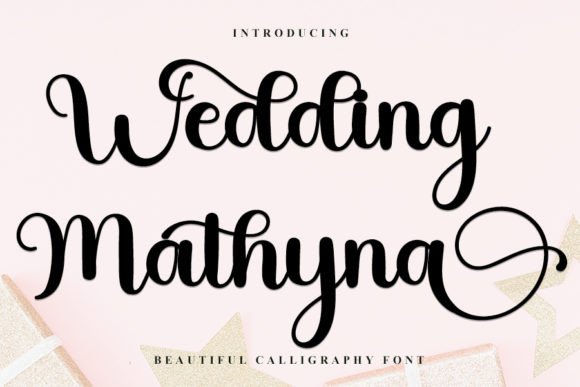
Introducing Wedding Mathyna, the most enchanting and sophisticated script font that will transform your creative endeavors into masterpieces. This exquisitely handcrafted typeface exudes elegance and grace, making it the perfect choice for those seeking to make a lasting impression.
With its beautifully flowing lines and delicate curves, Wedding Mathyna captures the essence of timeless romance and sophistication. Each letter dances across the page with a captivating rhythm, evoking a sense of joy and celebration. Whether you're crafting heartfelt invitations for your special day, designing captivating branding for your business, or creating social media posts that radiate charm, Wedding Mathyna is the perfect font to add a touch of magic to your creations.
As a PUA-encoded font, Wedding Mathyna grants you access to a world of typographic treasures. Effortlessly incorporate stunning glyphs and ligatures into your designs, unlocking endless possibilities for customization and creativity. Each intricate detail has been meticulously crafted to elevate your projects to new heights of visual allure.
Step into the realm of elegance with Wedding Mathyna. Let its graceful strokes guide your imagination and create designs that captivate and inspire. From the moment you begin typing, you'll feel the magic of this font as it transforms your words into works of art.